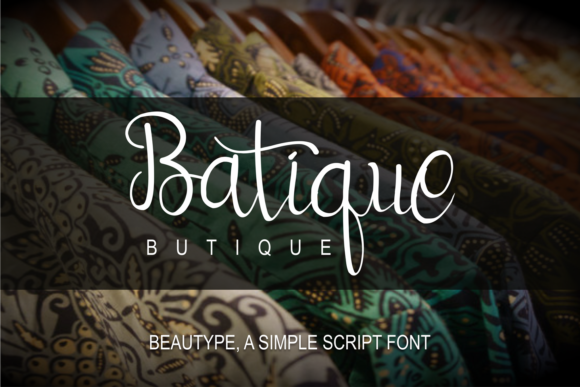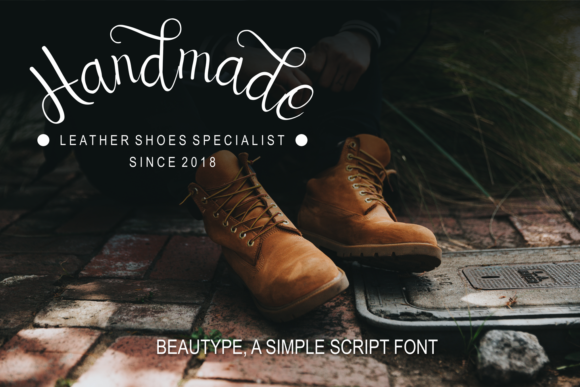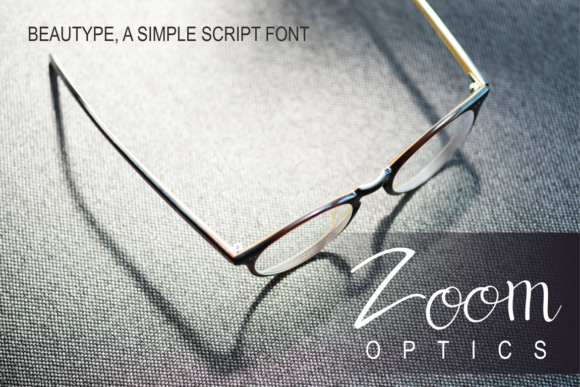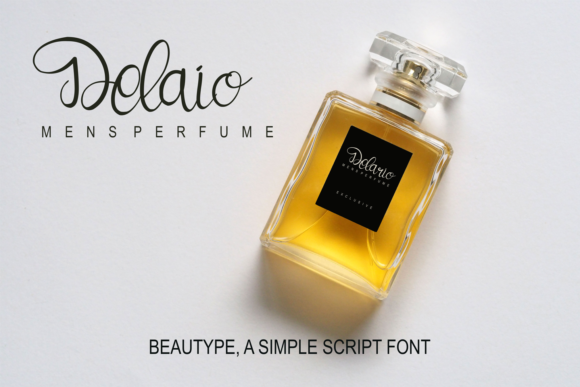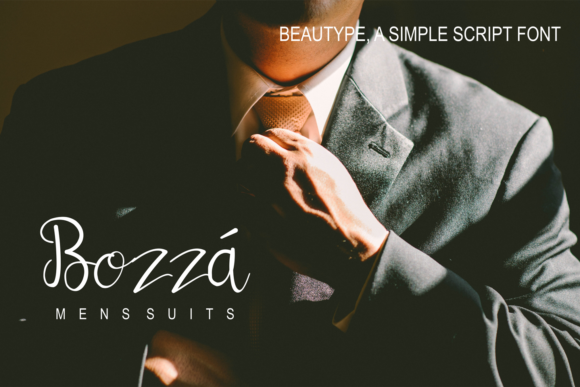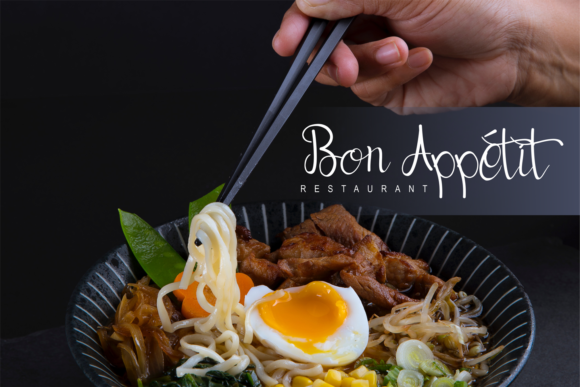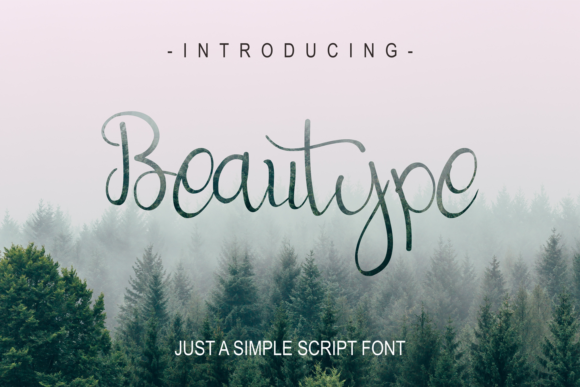
Introducing the Beautype Font: Elevate Your Designs with Elegance
The Beautype font is a stunning classy script font that exudes sophistication and luxury. With its elegant feel and refined aesthetic, it’s the perfect addition to any design project that requires a touch of high-end style. In this article, we’ll dive into the world of Beautype font, exploring its features, benefits, and uses, as well as provide tips and inspiration for designers and crafters looking to elevate their work.
The Beautype Font: A Classy Script Font
The Beautype font is a beautifully crafted script font that boasts a unique and elegant feel. Its flowing lines, intricate details, and refined letterforms make it an ideal choice for designs that require a touch of sophistication. Whether you’re working on a luxury brand identity, a high-end product packaging, or a stylish website, the Beautype font is sure to impress.
Key Features of the Beautype Font
- Elegant feel: The Beautype font has a refined and sophisticated aesthetic that’s perfect for high-end designs.
- Luxurious vibe: Add a touch of luxury to your designs with the Beautype font’s intricate details and flowing lines.
- Classy script font: The Beautype font is a beautifully crafted script font that’s perfect for designs that require a touch of elegance.
- Versatile: The Beautype font can be used for a wide range of design projects, from branding and packaging to web design and crafting.
Benefits of Using the Beautype Font
So, why choose the Beautype font for your design projects? Here are just a few benefits of using this stunning script font:
- Instantly elevate your designs: The Beautype font adds a touch of sophistication and luxury to any design project, making it perfect for high-end brands and products.
- Stand out from the crowd: With its unique and elegant feel, the Beautype font is sure to make your designs stand out from the competition.
Uses for the Beautype Font
The Beautype font is versatile and can be used for a wide range of design projects, including:
- Branding and identity: Use the Beautype font to create a luxurious brand identity that exudes sophistication and elegance.
- Packaging design: Add a touch of luxury to your product packaging with the Beautype font.
- Web design: Use the Beautype font to create a stylish and sophisticated website that reflects your brand’s high-end aesthetic.
- Crafting and DIY projects: The Beautype font is also perfect for crafters and DIY enthusiasts looking to add a touch of elegance to their projects.
Tips for Using the Beautype Font
Here are a few tips for using the Beautype font in your design projects:
- Use it sparingly: The Beautype font is a statement font, so use it sparingly to add emphasis and elegance to your designs.
- Pair it with a sans-serif font: Pair the Beautype font with a sans-serif font to create a stylish and sophisticated contrast.
- Experiment with colors and textures: Experiment with different colors and textures to add depth and interest to your designs.
- Design communities: Join design communities to connect with other designers and get feedback on your work.
In conclusion, the Beautype font is a stunning classy script font that adds a touch of elegance and sophistication to any design project. With its luxurious vibe, versatile uses, and ease of use, it’s perfect for designers and crafters looking to elevate their work. So why not give it a try and see how it can transform your designs?